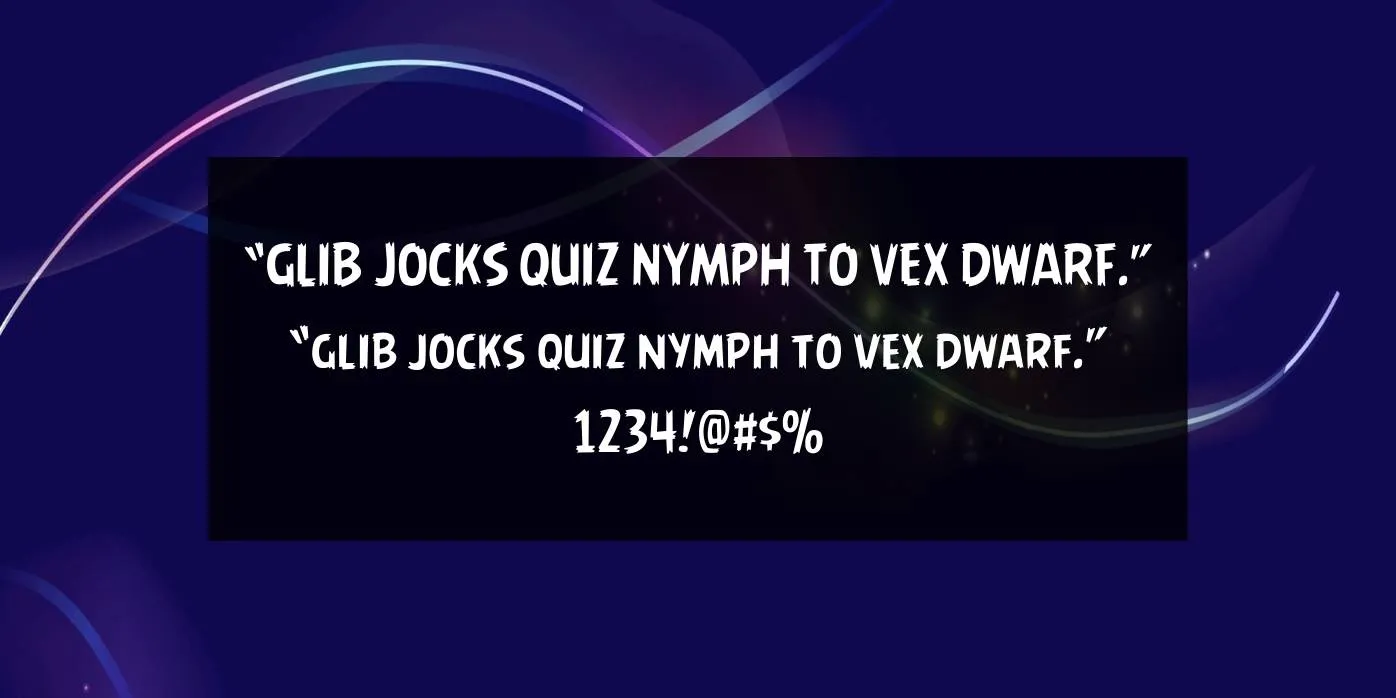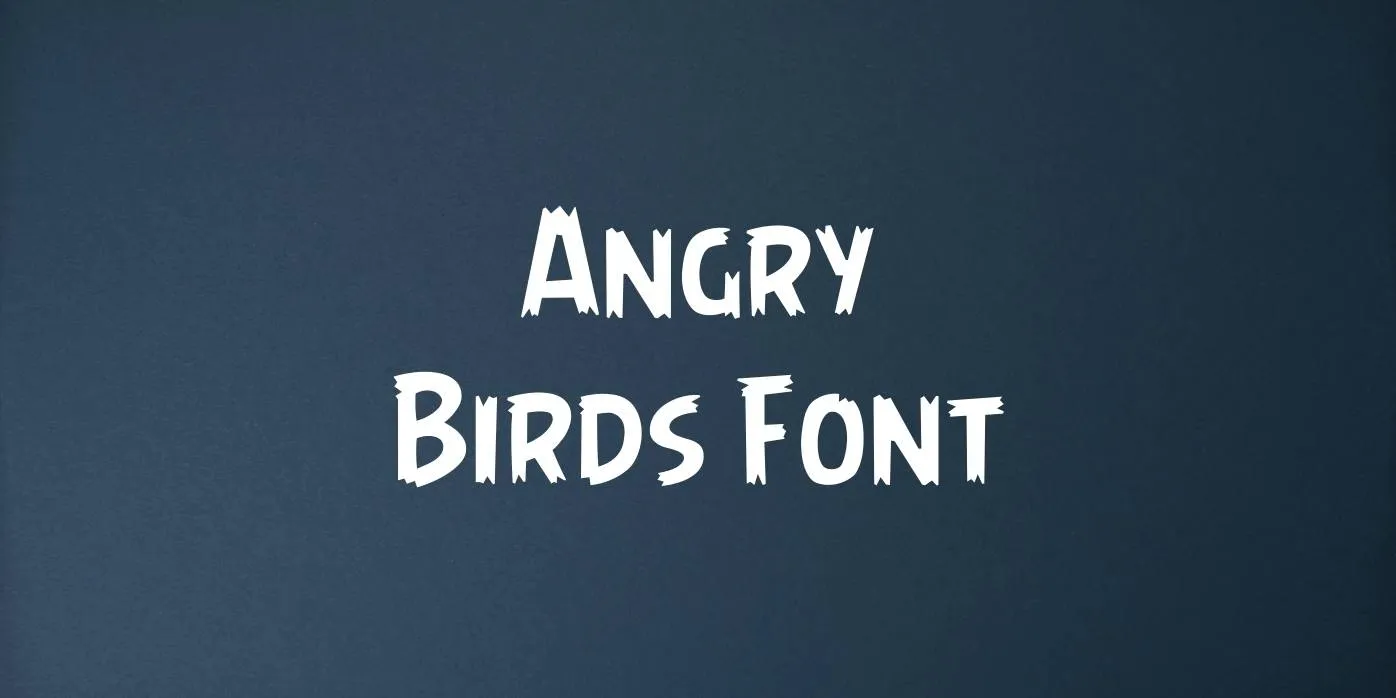
Angry Birds Font
Angry Birds Font belongs to the brush font family. This type of Typeface was inspired by the Angry Birds game. The letters were designed to look like they were created with a paintbrush. This font is perfect for adding a fun and playful touch to any project.
This typeface is perfect for any project that needs a touch of whimsy. It can be used for everything from invitations to posters to website headers. Its similar font which is westfalia font is perfect for different designs This typeface is not included in google fonts. You can easily use it for Canva.